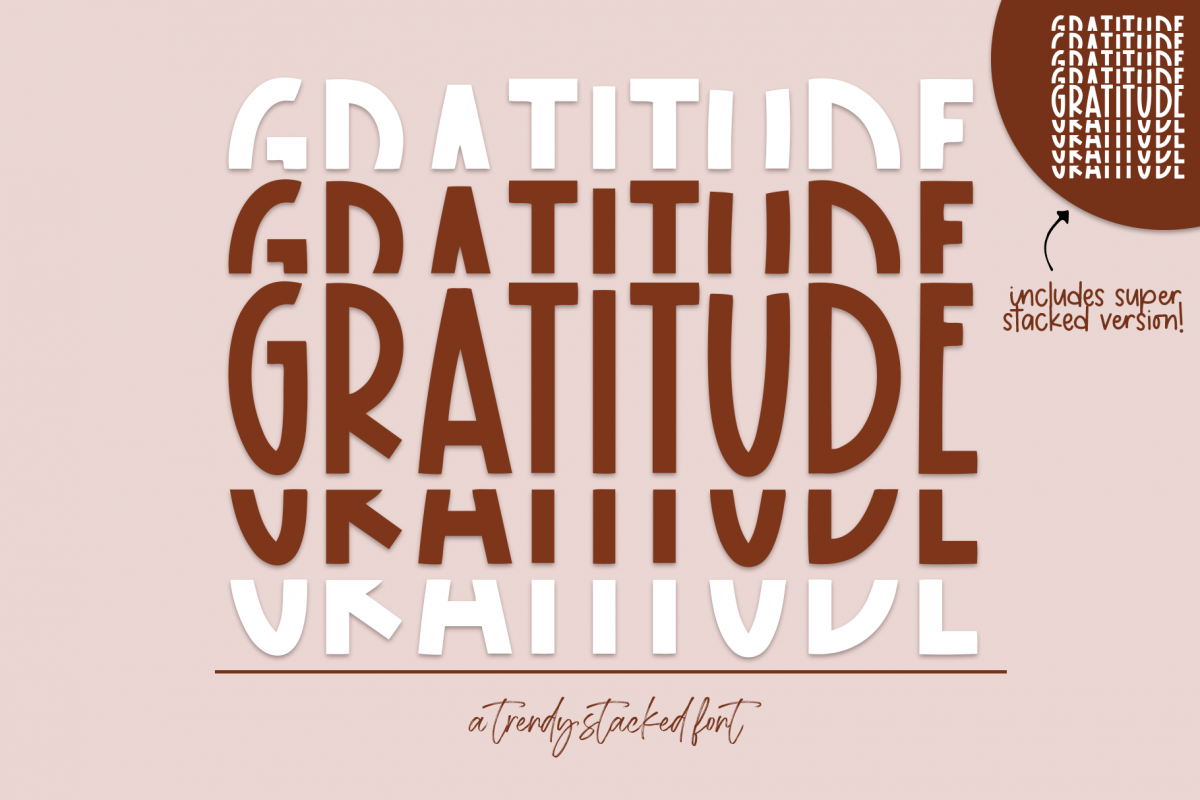
Gratitude - A Fun Stacked Font
Gratitude is a fun stacked font perfect for all of your designs!
Gratitude will save you a TON of time making your own stacked/mirrored designs!
Includes 2:2 stacked and 4:4 stacked fonts.
This font includes all capital letters ONLY.
This font is perfect for shirts, mugs, posters, social media, signs and more!
This font does include accent characters.